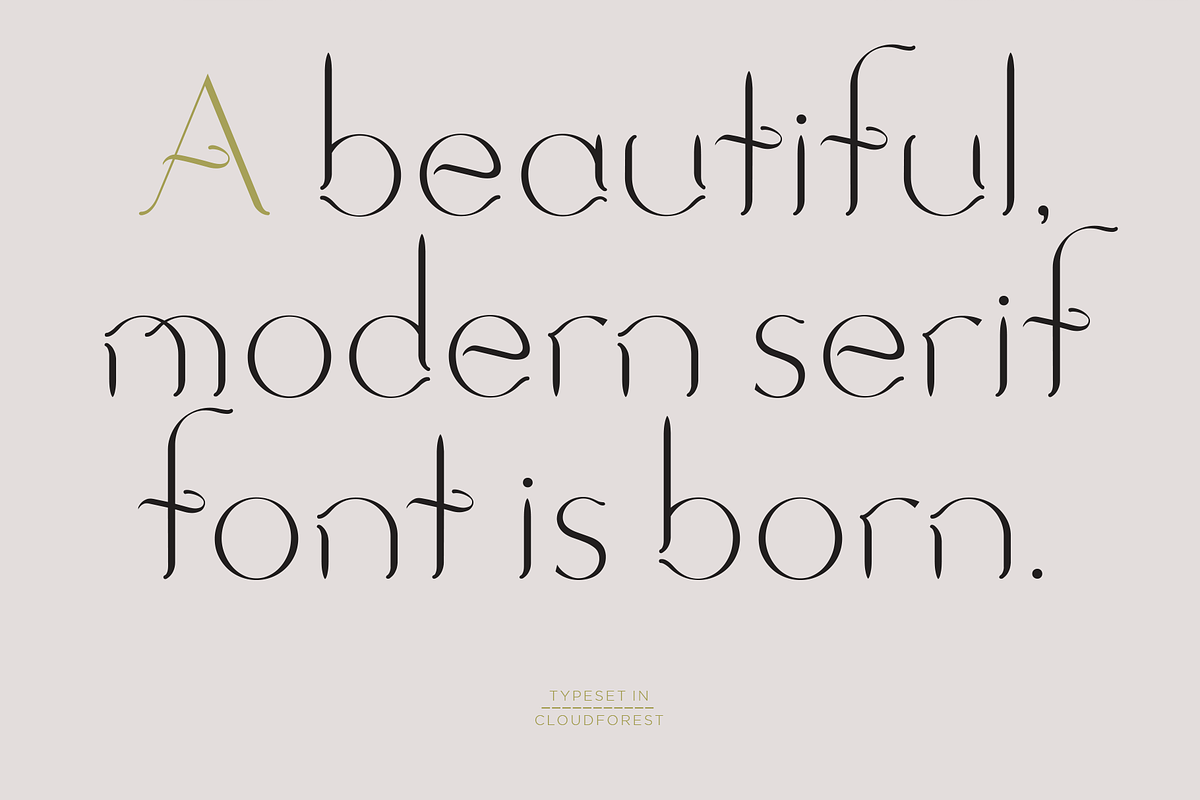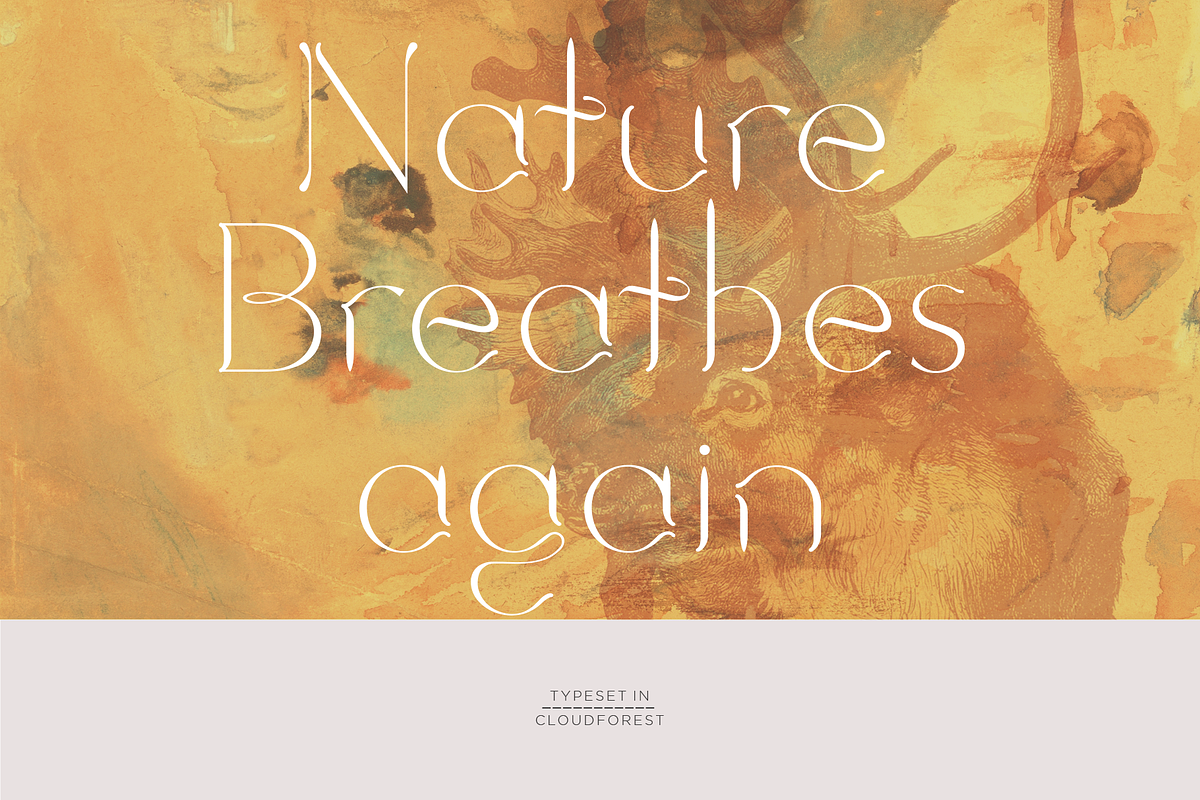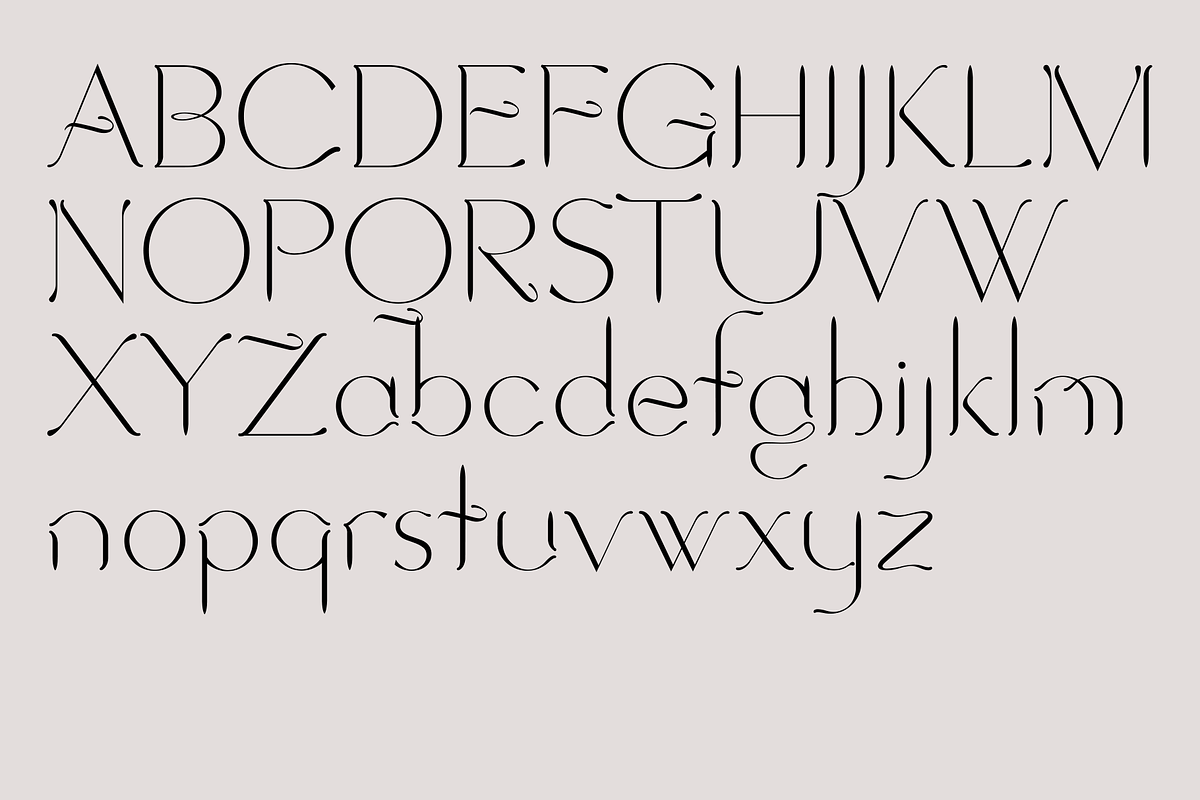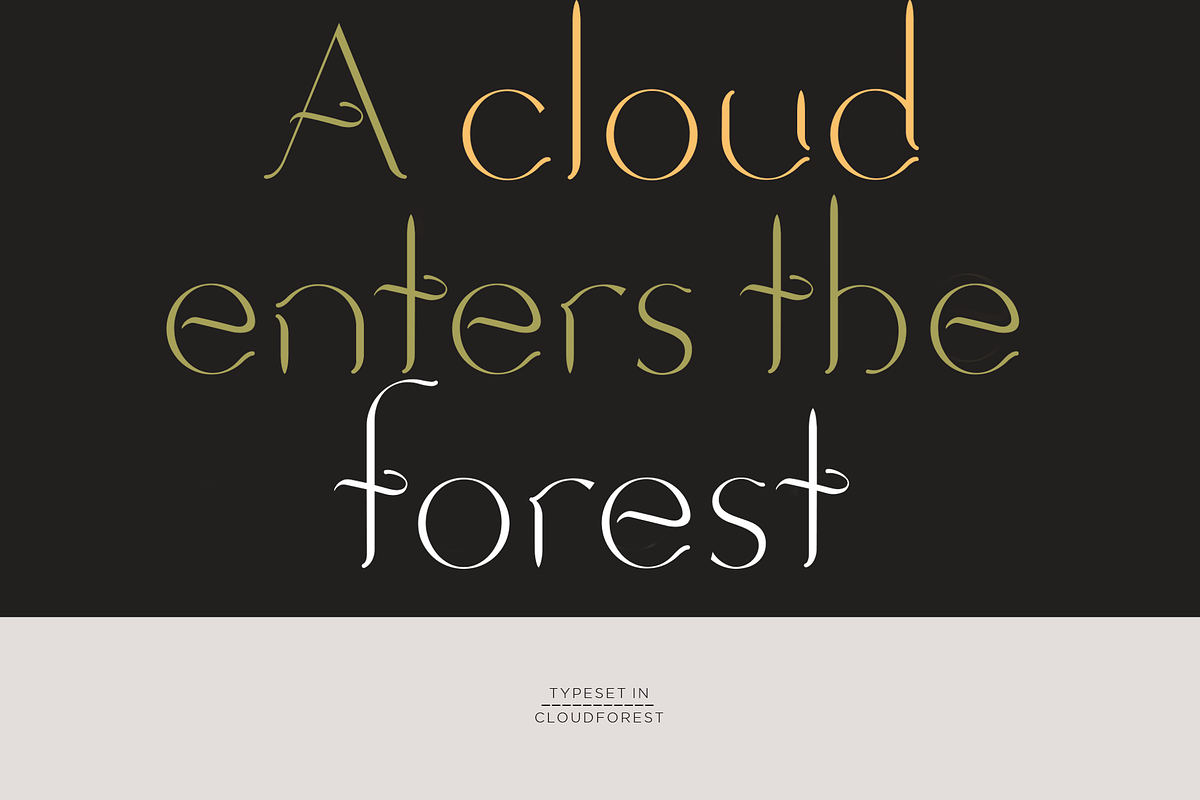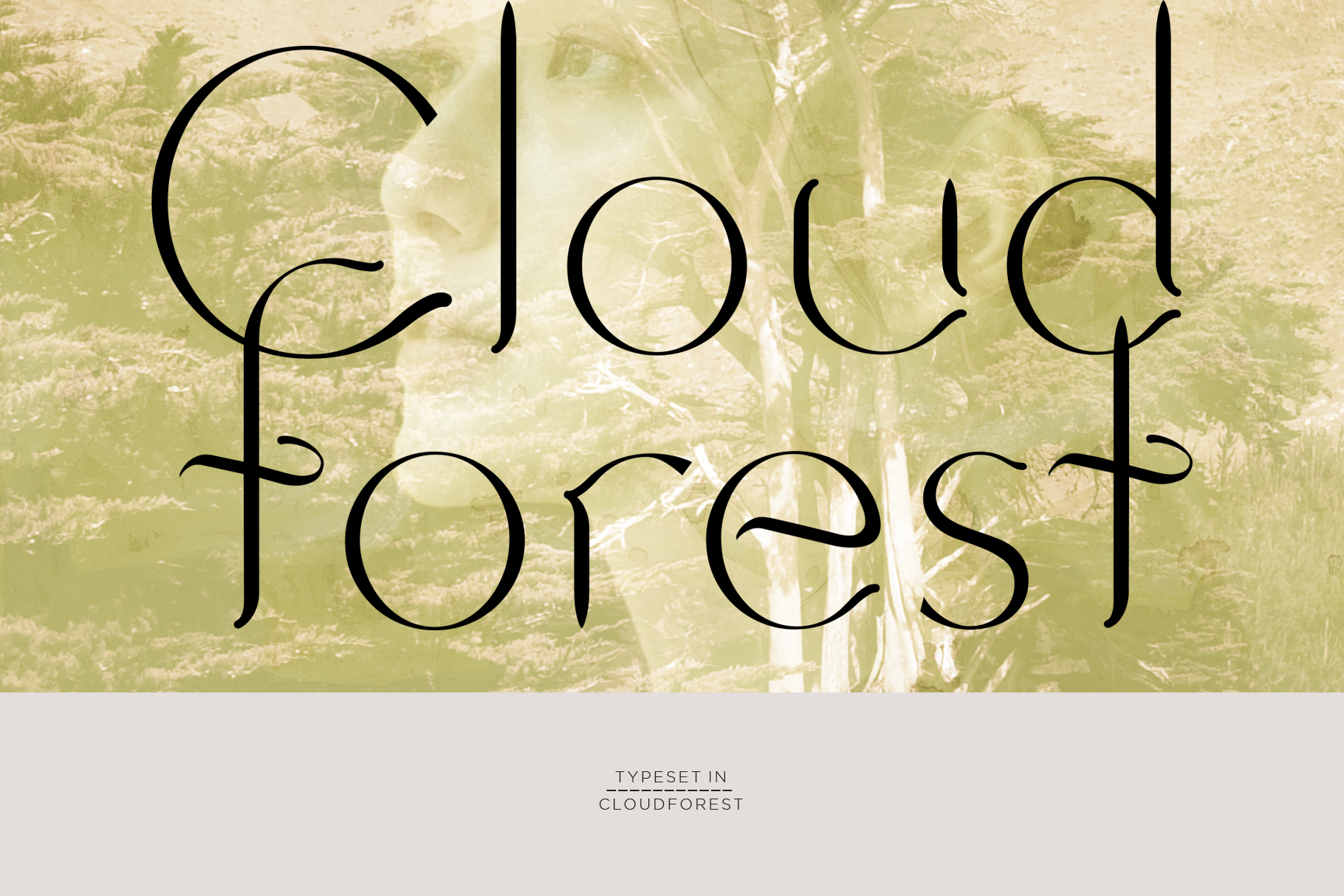
Cloudforest. Chic, modern serif font
Cloudforest is yet another in my collection of stunning, contemporary serif fonts that have breathed new life into the traditional serif world. Cloudforest is loaded with design touches that add personality and uniqueness and makes the font perfect to be used across many of your design projects, in print and online. You can use Cloudforest in websites, blogs, vlogs, social media posts and Youtube creator titles. And in print I use Cloudforest in logos, packaging designs, wedding designs, F&B, and branding, to name but a few. Cloudforest is a must-have addition to any professional designer's font catalogue, comes in 2 weights and supports many European languages.